Speed, technology, and precision are the defining elements of motorsport culture. If you are designing for a racing team, a car tuning shop, or automotive streetwear, standard fonts will look flat. Incorporating automotive racing fonts gives your graphics immediate momentum and power.
Here is how to select dynamic typography for high-octane automotive brands.
1. Sharp Slants and Aerodynamic Letterforms
Racing fonts rely on geometry to imitate physical movement. For example, wide horizontal proportions and forward-slanted italic angles create a sense of velocity. As a result, the text feels like it is moving at high speed across the layout.
2. Engineered for Car Stance Apparel and Decals
Automotive typography performs exceptionally well on physical car culture merchandise:
- Windshield Banners: Creates clean, sharp banner cuts for custom car builds.
- Motorsports Merch: Looks incredible when printed large on mechanic jackets, hoodies, and pit crew shirts.
- Tuning Shop Logos: Delivers a modern, high-tech logo for performance garages.
3. Keep Supporting Details Simple and Compact
Because racing headlines command a lot of visual attention, keep secondary text minimalist. For instance, pair heavy automotive headlines with a simple condensed Sans Serif font for website links or engine specs. Consequently, your layout stays easy to read.
Recommended Fonts from Artisan Font
- Fasthon: An automotive design font crafted with sleek, aerodynamic lines for speed graphics.
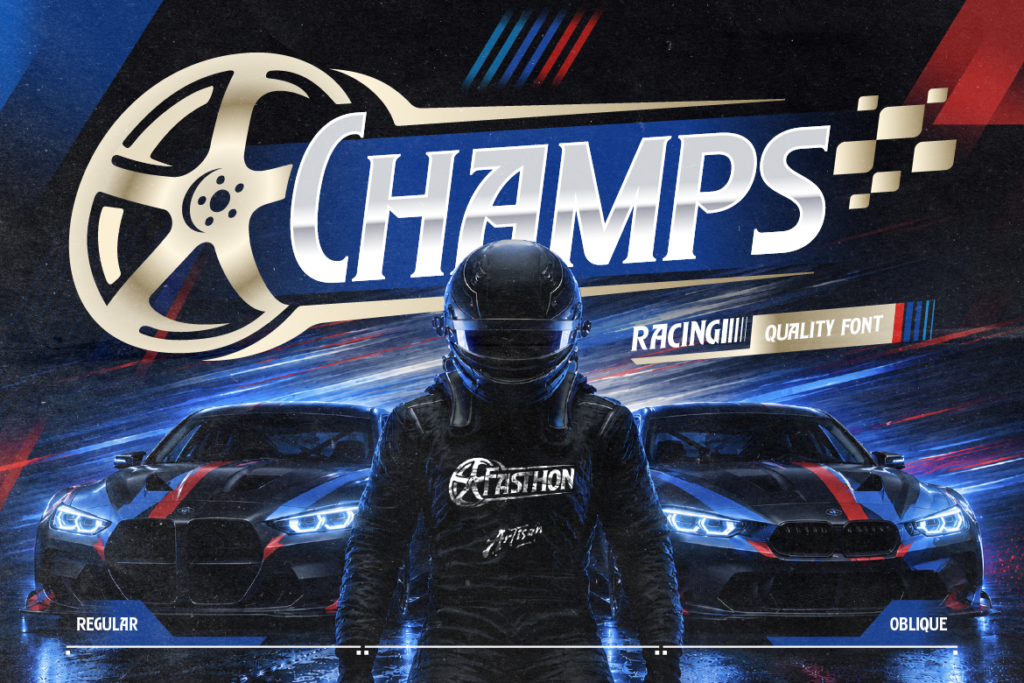
- Rushmax: A modern line sport font engineered for racing banners and car stance merch.